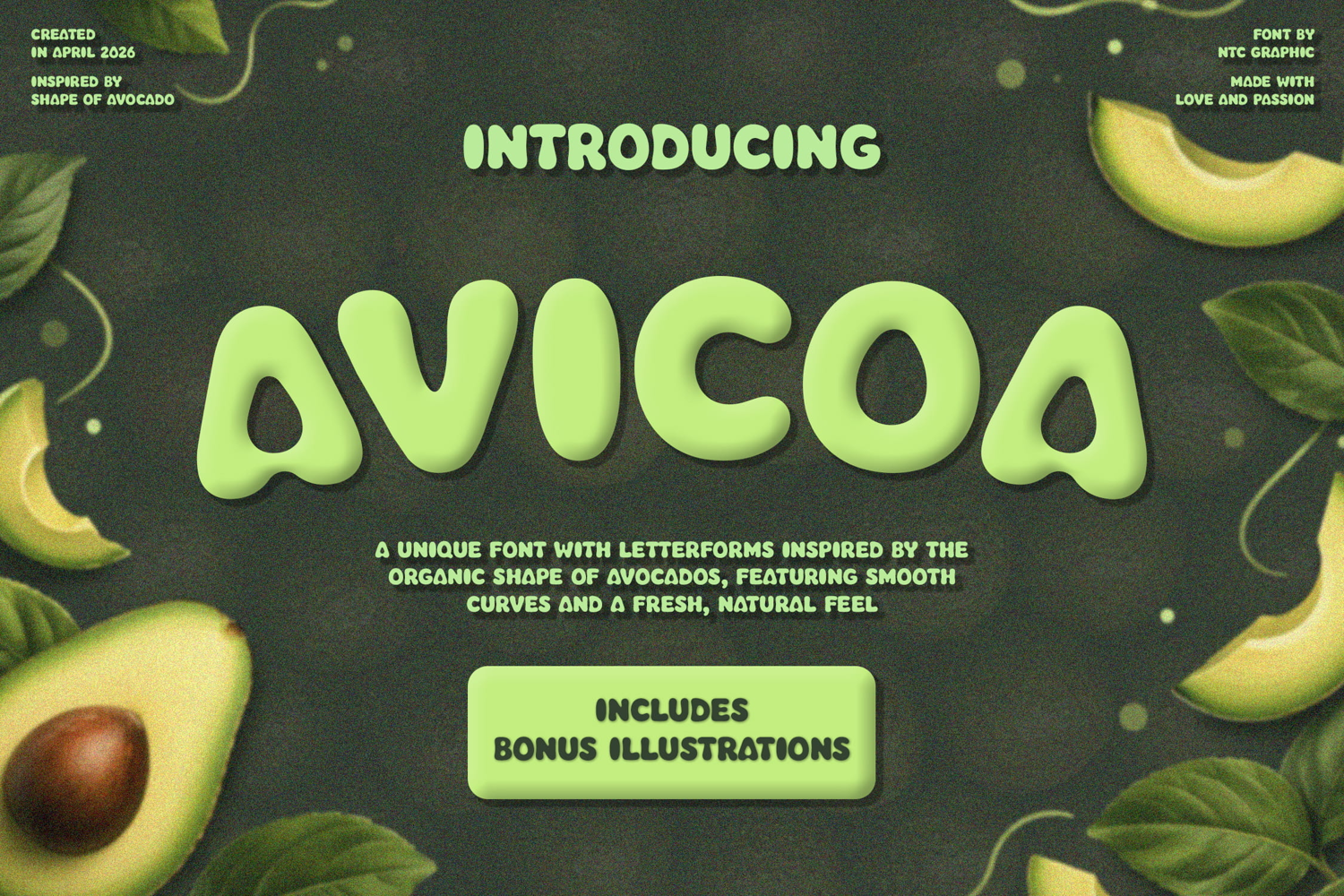
Avicoa Organic Avocado Font
Avicoa
Avicoa – Organic Avocado Font + Bonus Graphics
Avicoa is a unique avocado-inspired font featuring smooth, rounded letterforms based on the natural shape of avocados. Designed with a fresh and organic feel, this font is perfect for creating clean, friendly, and eye-catching designs.
Ideal for branding, logo design, packaging, food & beverage products, organic brands, skincare, merchandise, and modern lifestyle designs.
• Uppercase A–Z
• Numbers (0–9)
• Essential punctuation
Key Features
• Organic & natural style
• Smooth rounded shapes
• Clean and modern look